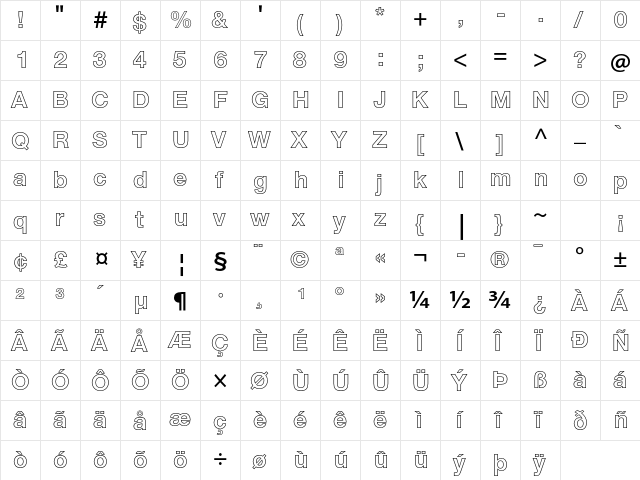
Helvetica Neue LT Std 75 Bold Outline
| Designer | Linotype Staff |
Design Context for Helvetica Neue LT Std Typeface
Helvetica Neue LT Std is built around its visual character rather than neutral utility — its distinctive forms are designed to make an impression at display sizes. The heavy weight commands attention and anchors typographic hierarchies.
Font Pairing: Pair with a clean neutral sans-serif for body copy to let Helvetica Neue LT Std's character lead without overwhelming the composition.
Pro Tip: Treat Helvetica Neue LT Std as the centrepiece of your typographic hierarchy. One strong heading set in a decorative face can carry an entire layout.